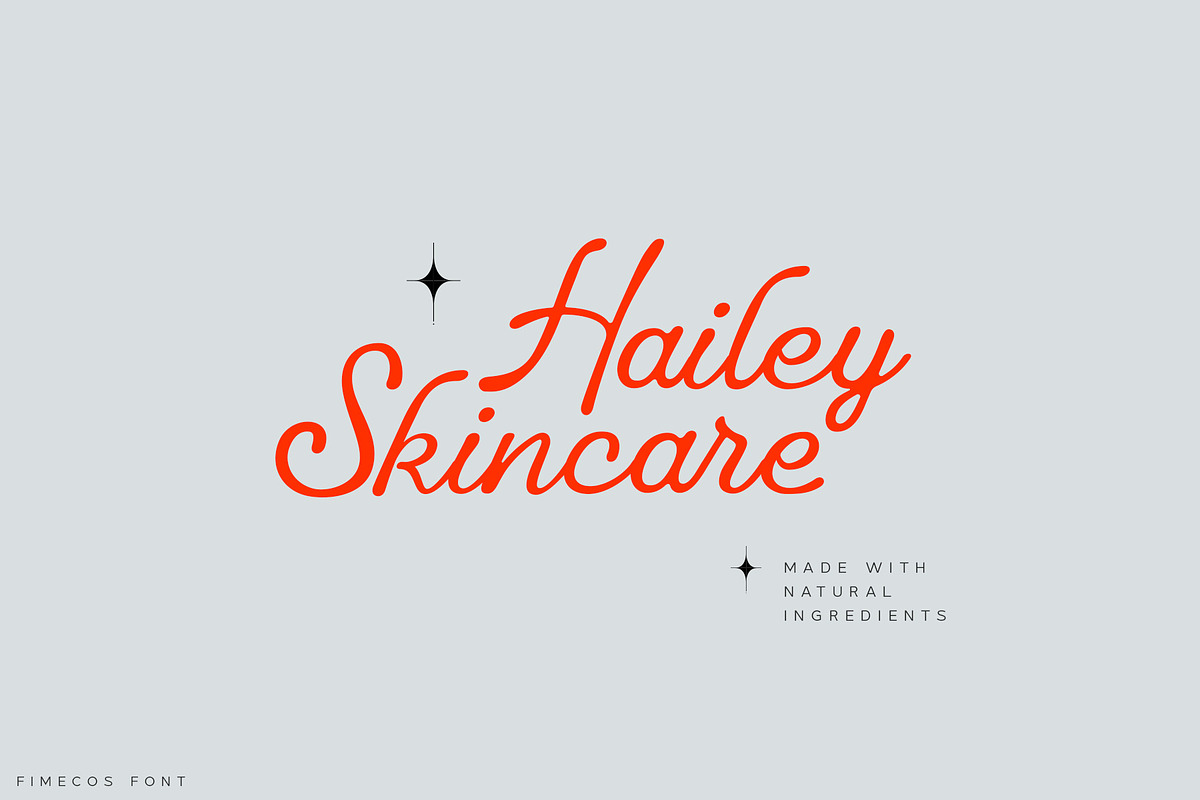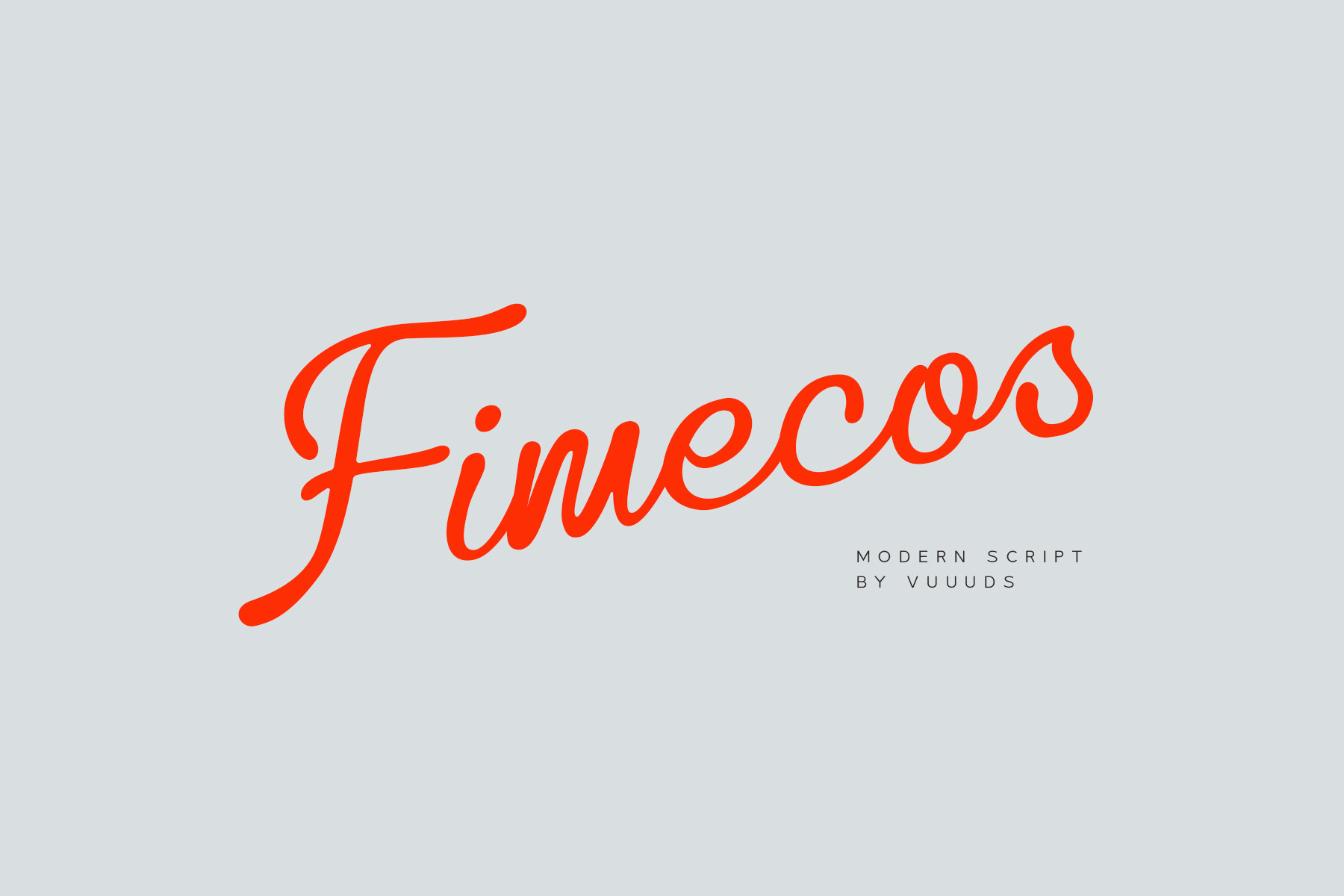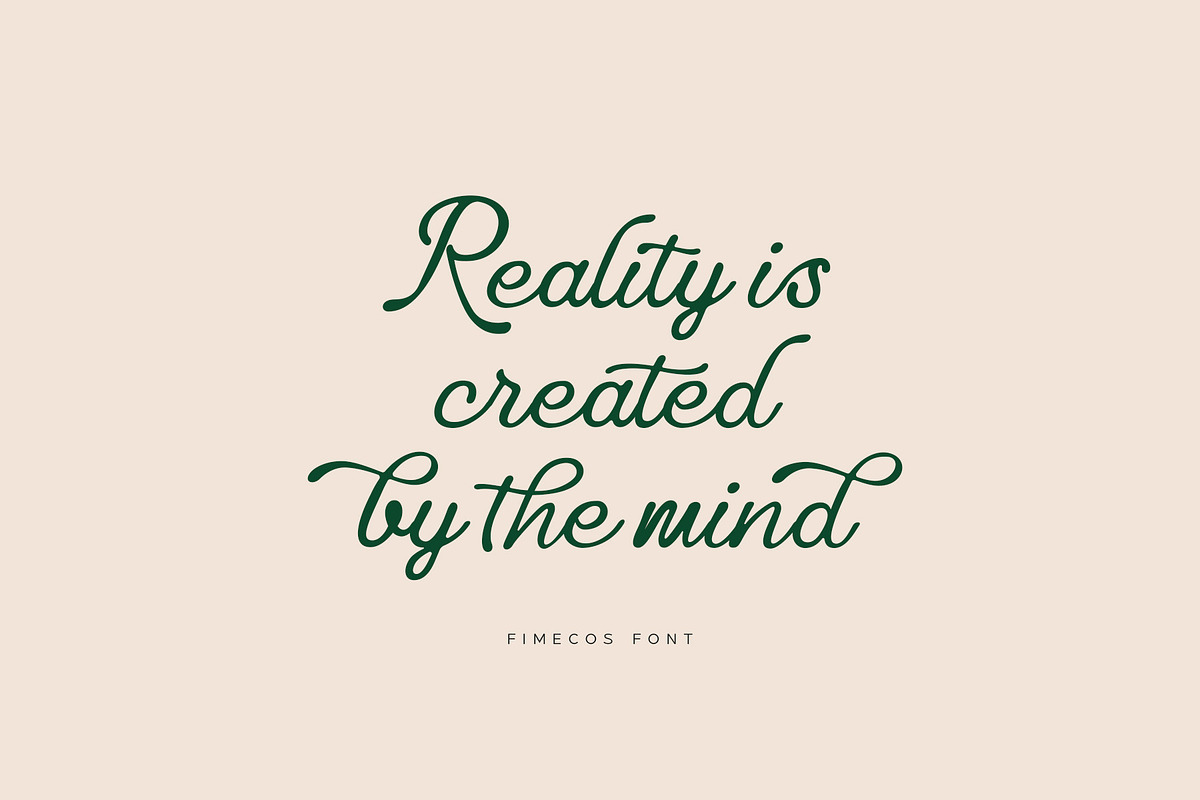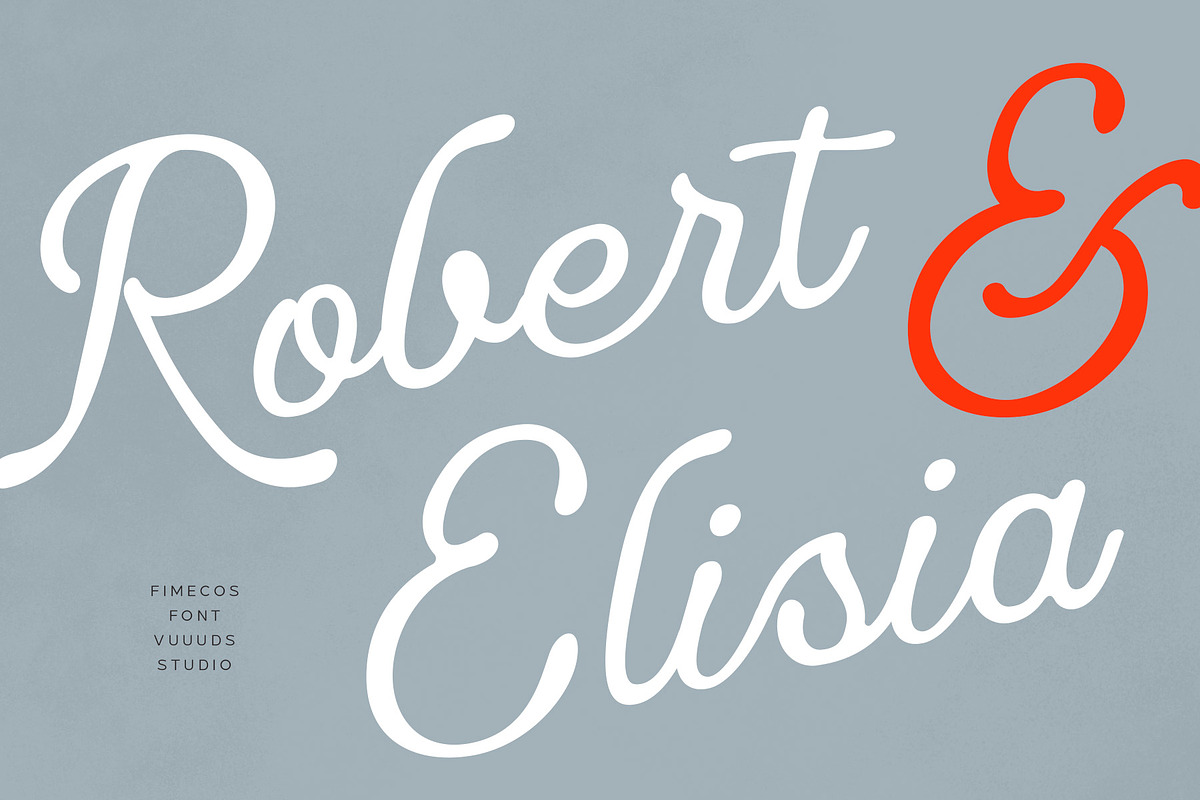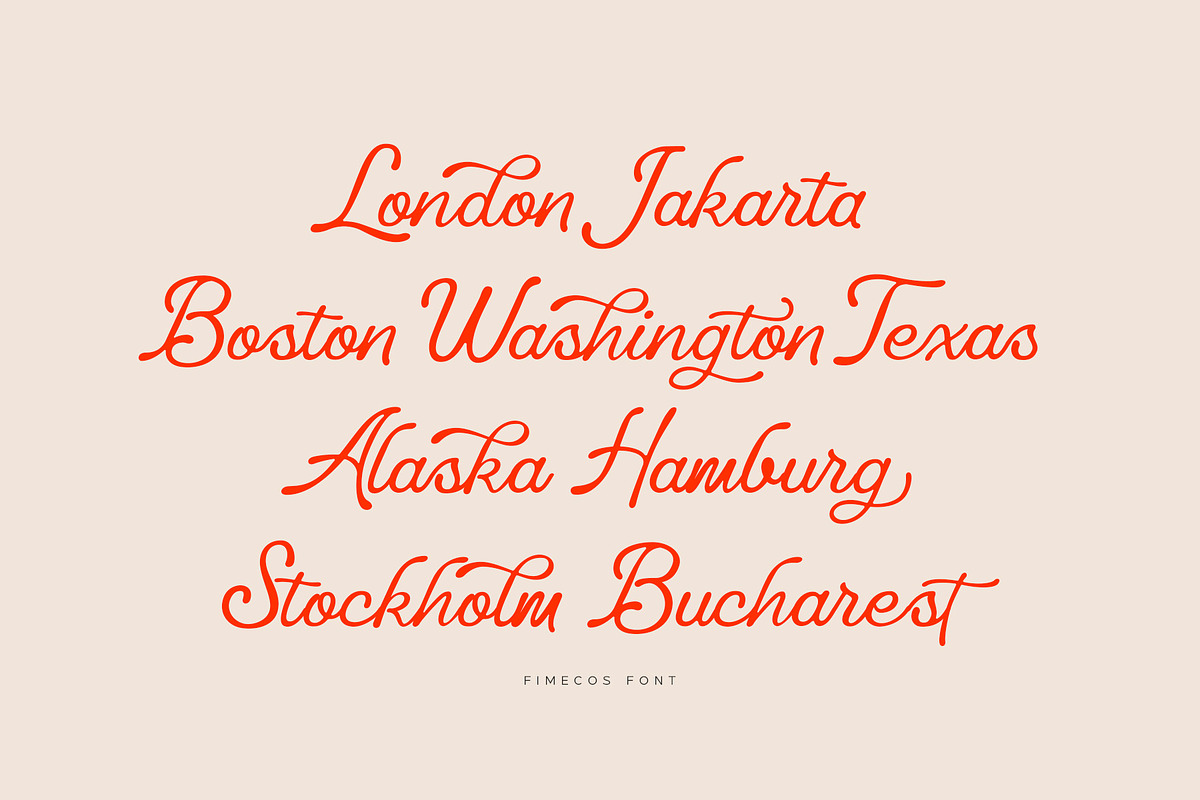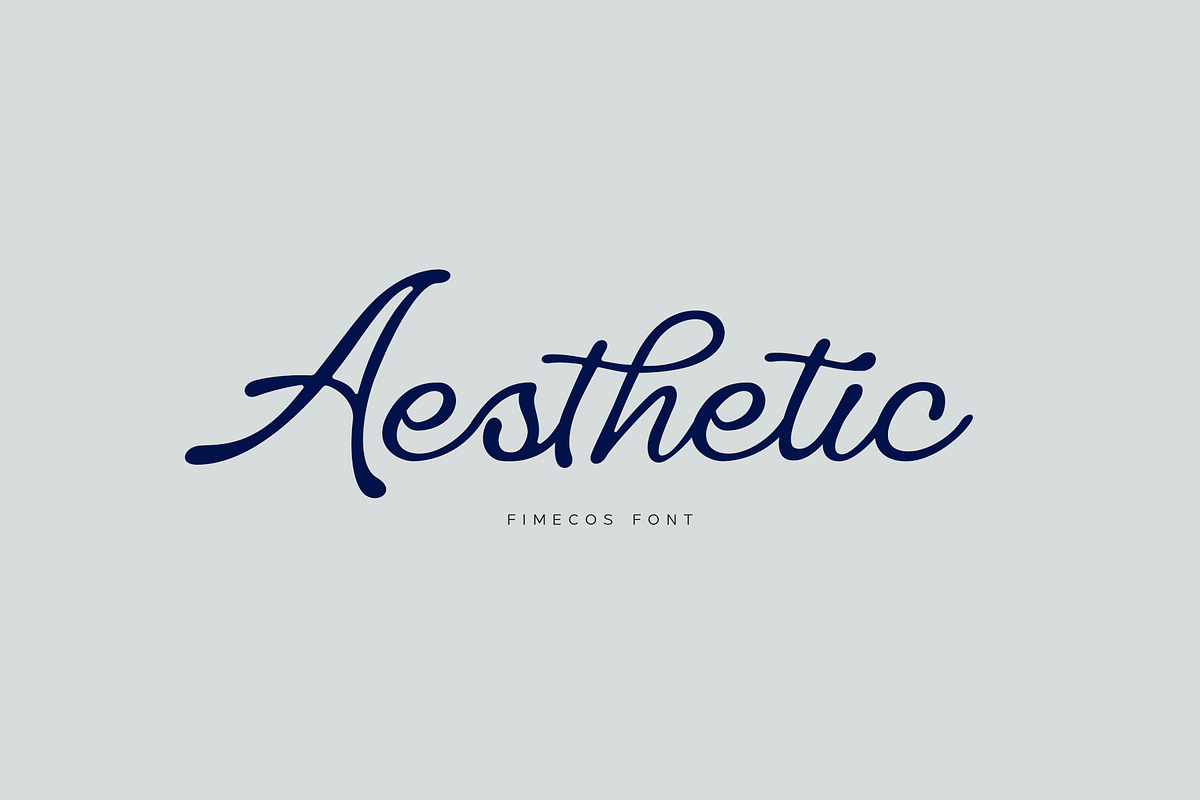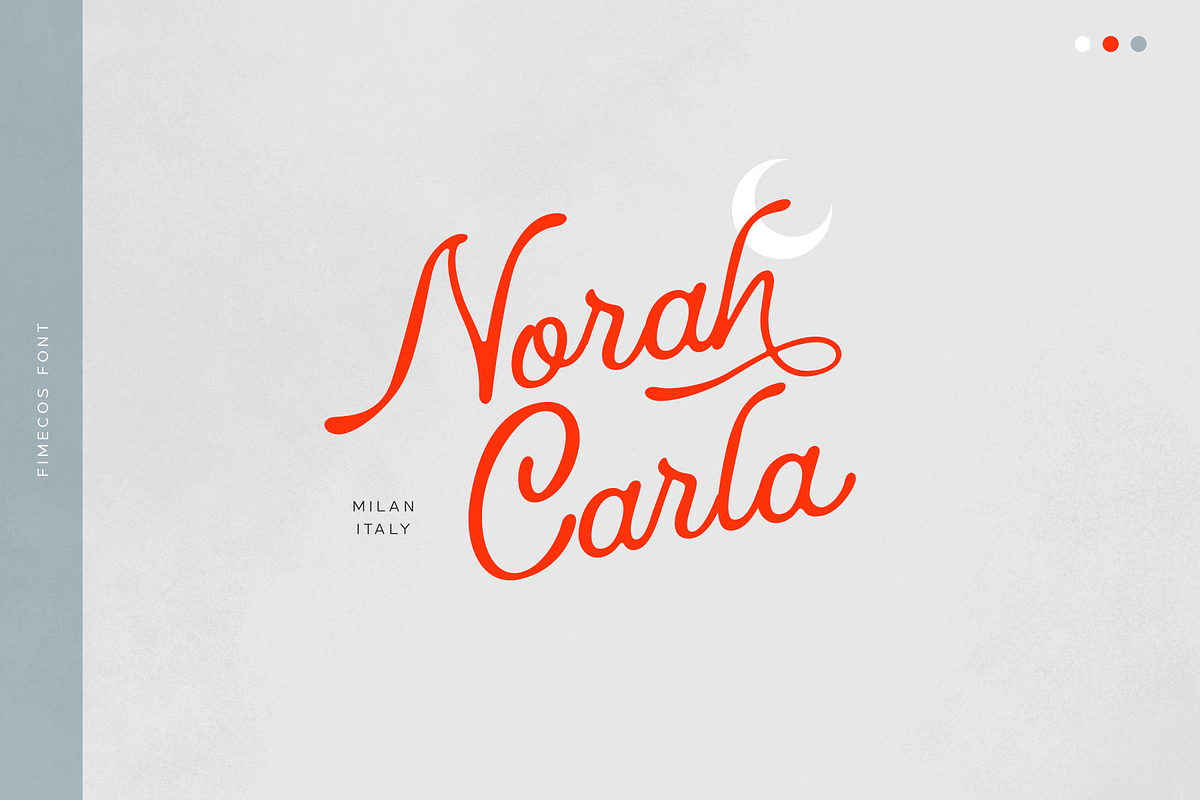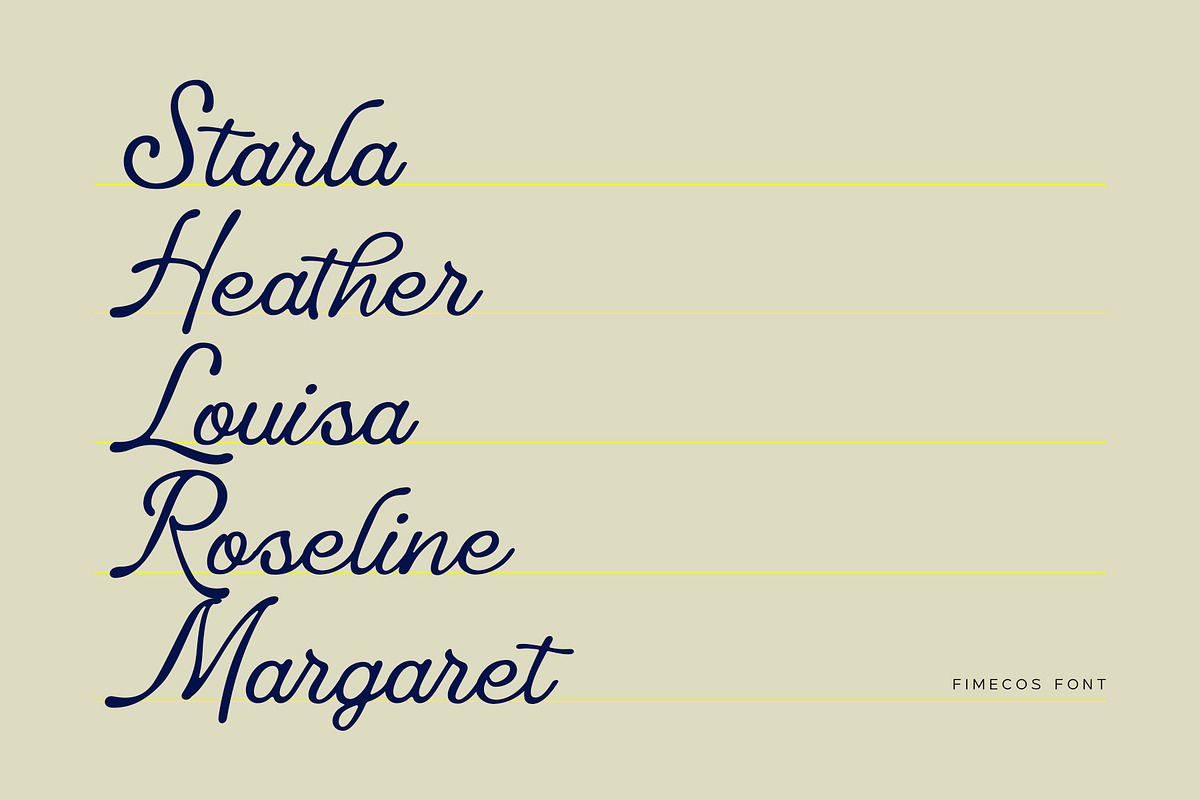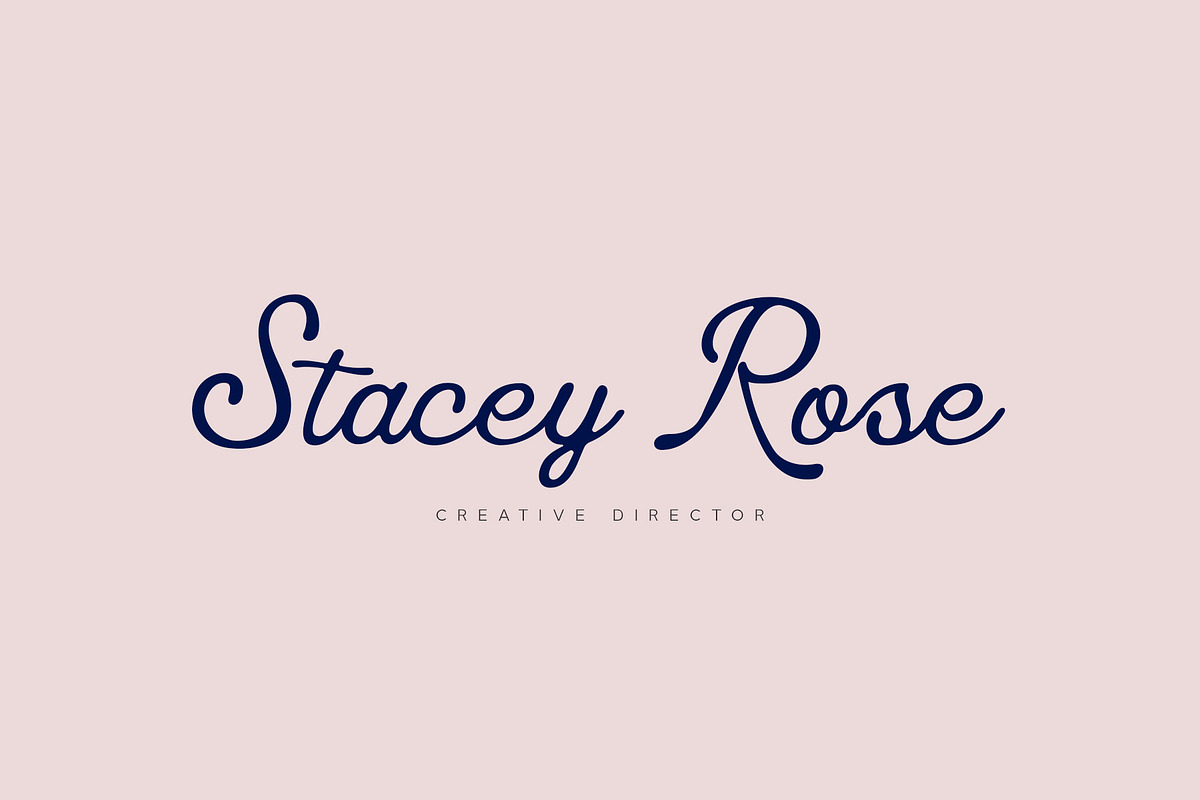
Fimecos Font
Fimecos is modern script font, every single letters have been carefully crafted to make your text looks beautiful. With modern script style this font will perfect for many different project ex: Instagram post, signature logo, watermark, quote, blog header, poster, wedding, branding, logo, fashion, apparel, letter, invitation, stationery, etc.
Ligature & alternate glyph: a ab af ah ak al all at att bl ch ck db eb eh ek el ell em en et ett es ft g gh i ib if ih ik il ill is it itt nt o ob of oh ok ol ot pl pp s sh sk sl ss st u ub uf uh uk ul ut wh
Foreign languages support: ÀÁÂÃÄÅÆÇÈÉÊËÌÍÎÏÐÑÒÓÔÕÖØÙÚÛÜÝßàáâãäåæçèéêëìíîïðñòóôõöøùúûüýÿ